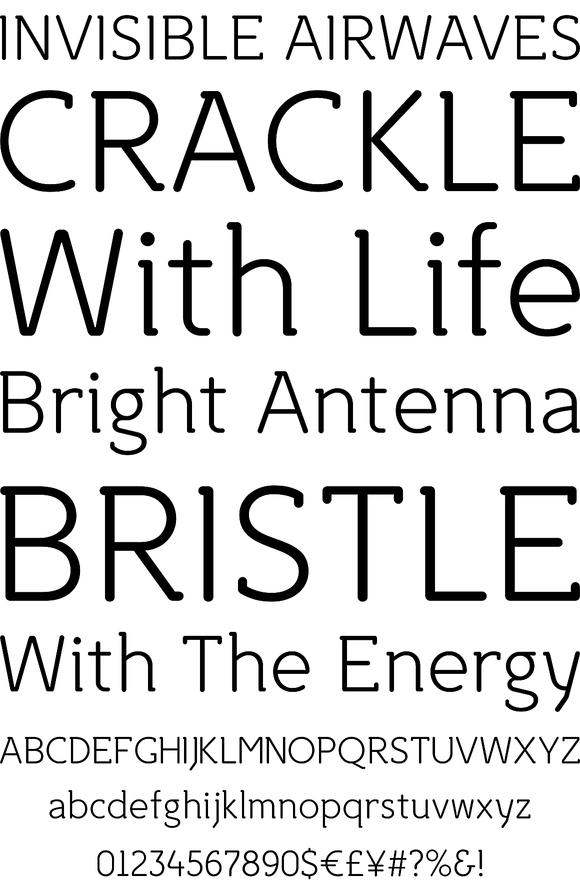
Croog is a rounded geometric monoline typeface, built in three weights with true italics. Inspiration for this typeface was derived from FF Roice, with desire to create typeface less spicy or unconventional in appearance and more neutral, calm and friendly to use. Squarish in proportions, monoline letterfoms gain more readability by having short rounded serifs and terminals. The typeface is ideal for use in display sizes, though is quite legible in text.